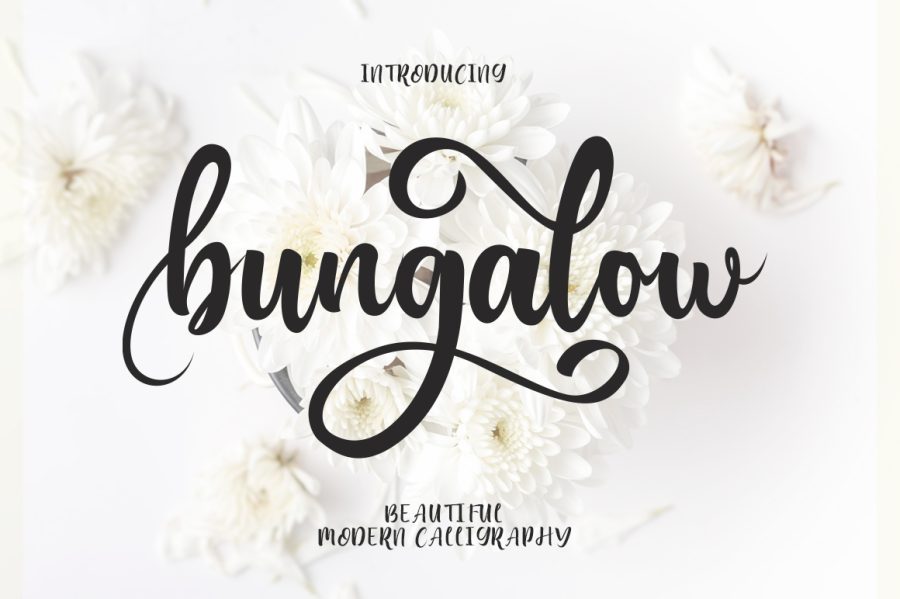
Free Bungalow Script Font is a luxury script font. It is suitable for wedding invitation, gift card, logo, food menu, t-shirt and more. This font is available for two format file OTF and TTF that you can install on your devices. However, this free font is coming for personal license use, but if you want to use it on a commercial project, you can make purchase a Premium Version.
Free Bungalow Script Font
Free Bungalow Script Font is a luxury script font. It is suitable for wedding invitation, gift card, logo, food menu, t-shirt and more. This font is available for two format file OTF and TTF that you can install on your devices. However, this free font is coming for personal license use, but if you want to use it on a commercial project, you can make purchase a Premium Version.